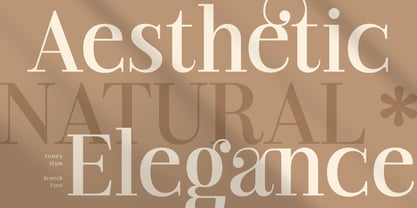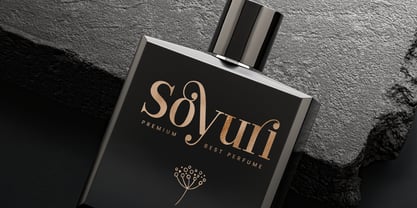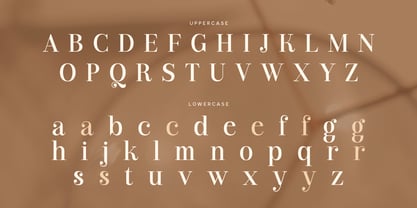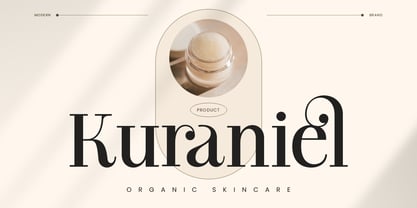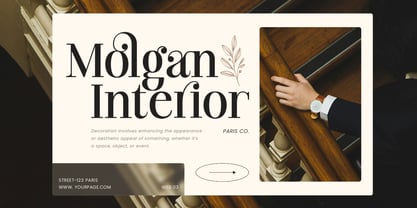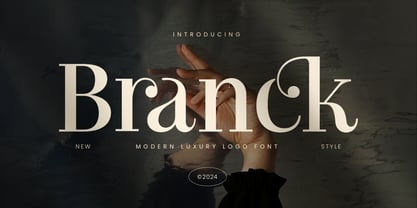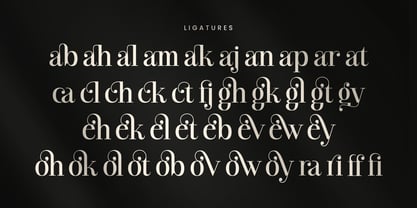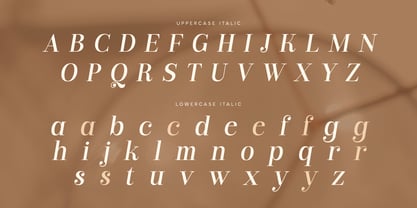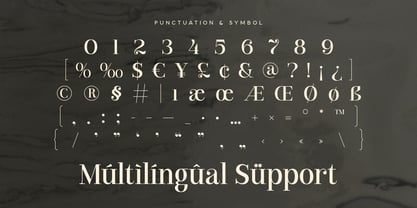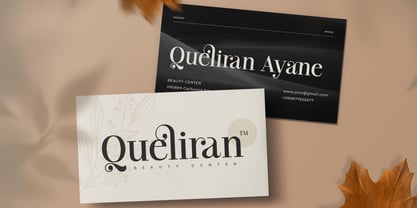
Branck SS
von Sensatype Studio
Die Schriftfamilie Branck SS wurde von Zamroni Hamzah entworfen und von Sensatype Studio veröffentlicht. Branck SS enthält 2 Stile und Familienpaketoptionen.
Branck is a modern luxury logo font crafted to infuse sophistication and elegance into your branding projects. Inspired by high-end fashion, premium products, and sleek architecture, Branck delivers a refined aesthetic that appeals to discerning tastes. This versatile font features clean lines and stylish curves, making it ideal for logos, branding materials, and any project that demands a touch of class.
The Story Behind Branck:
The creation of Branck was driven by a vision to blend contemporary design with timeless luxury. Drawing inspiration from the worlds of high fashion and premium products, Branck embodies a chic and polished aesthetic. Its design is meticulously crafted to enhance the visual appeal of any project, ensuring your brand stands out with elegance and sophistication.
Font Features:
• Clean lines and stylish curves
• Versatile and adaptable for various design projects
• Perfect for high-end branding and premium products
• Adds a touch of class to logos and branding materials
• Suitable for sophisticated and modern design aesthetics
Best For:
• Logo design
• Branding materials
• High-end fashion projects
• Premium product packaging
• Elegant website headers
Elevate your design projects with Branck, the modern luxury logo font that brings a touch of sophistication to your brand.
Designer: Zamroni Hamzah